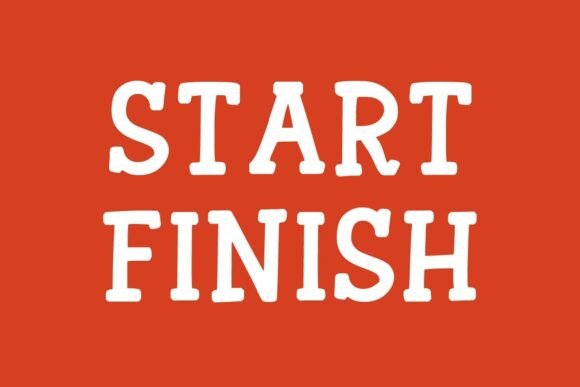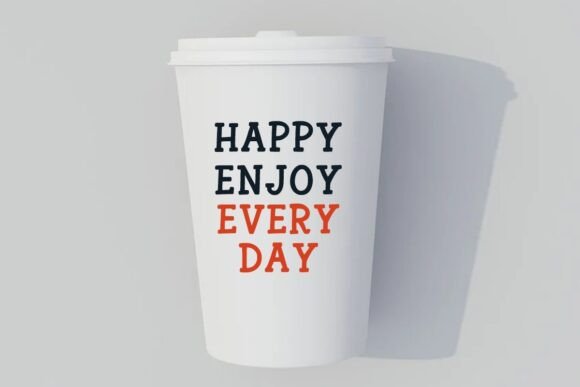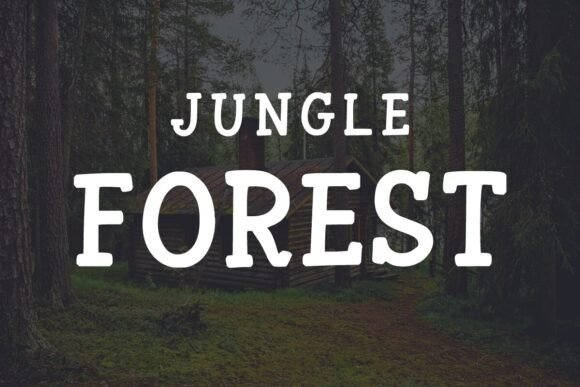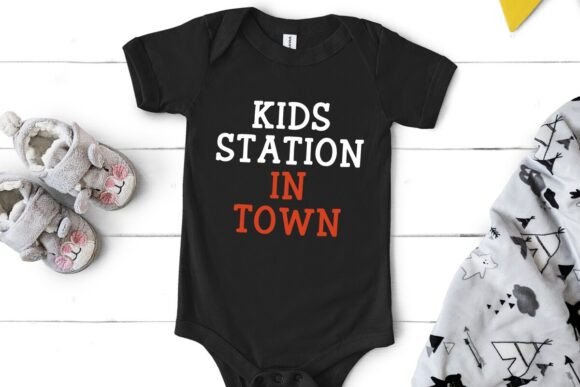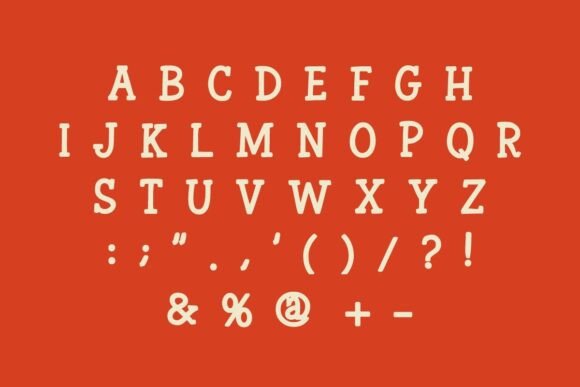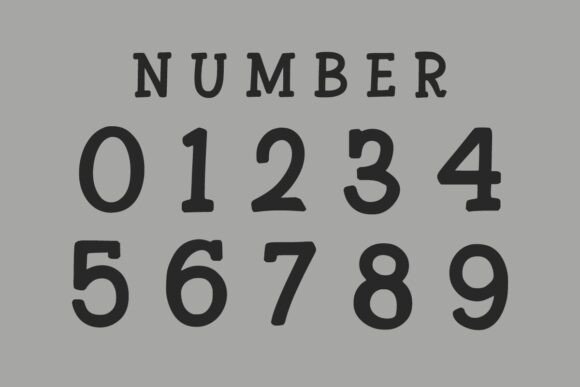
Introducing Flow Kids Font: The Ultimate Vintage-Inspired Uppercase Font
Are you a designer or crafter looking for a font that exudes a sense of nostalgia and classic charm? Look no further than Flow Kids Font, a beautiful uppercase font that’s perfect for a wide range of projects. With its vintage flair and versatility, Flow Kids Font is sure to become a staple in your design toolkit.
What is Flow Kids Font?
Flow Kids Font is a carefully crafted uppercase font that’s designed to evoke a sense of nostalgia and timelessness. Its classic design makes it perfect for projects that require a touch of elegance and sophistication. Whether you’re working on a blog post, logo, branding project, ad, invitation, greeting card, planner, photo album, or decoration, Flow Kids Font is the perfect choice.
Key Features of Flow Kids Font
- Uppercase font: Flow Kids Font is an uppercase font, making it perfect for headlines, titles, and emphasis.
- Vintage design: The font’s classic design is reminiscent of traditional printing methods, giving it a unique and timeless feel.
- Versatile: Flow Kids Font can be used for a wide range of projects, from digital designs to print materials.
- Elegant and sophisticated: The font’s classic design makes it perfect for projects that require a touch of elegance and sophistication.
Uses for Flow Kids Font
Flow Kids Font is perfect for a wide range of projects, including:
- Blog posts: Use Flow Kids Font to add a touch of elegance to your blog post titles and headings.
- Logos and branding: Create a lasting impression with Flow Kids Font, perfect for logos, business cards, and other branding materials.
- Ads and marketing materials: Grab attention with Flow Kids Font, perfect for ads, flyers, and other marketing materials.
- Invitations and greeting cards: Add a touch of class to your invitations and greeting cards with Flow Kids Font.
- Planners and journals: Use Flow Kids Font to add a touch of elegance to your planners and journals.
- Photo albums and scrapbooking: Create beautiful photo albums and scrapbooking pages with Flow Kids Font.
- Decorations: Use Flow Kids Font to create beautiful decorations, such as wall art and signs.
Why Choose Flow Kids Font?
With so many fonts available, why choose Flow Kids Font? Here are just a few reasons:
- Unique and timeless design: Flow Kids Font’s classic design makes it a unique and timeless choice for your projects.
- Versatile: Flow Kids Font can be used for a wide range of projects, making it a great addition to your design toolkit.
- Elegant and sophisticated: The font’s classic design makes it perfect for projects that require a touch of elegance and sophistication.
Flow Kids Font is a beautiful uppercase font that’s perfect for designers and crafters looking for a vintage-inspired font with a classic charm. With its versatile design and wide range of uses, Flow Kids Font is sure to become a staple in your design toolkit. Whether you’re working on a blog post, logo, branding project, ad, invitation, greeting card, planner, photo album, or decoration, Flow Kids Font is the perfect choice.